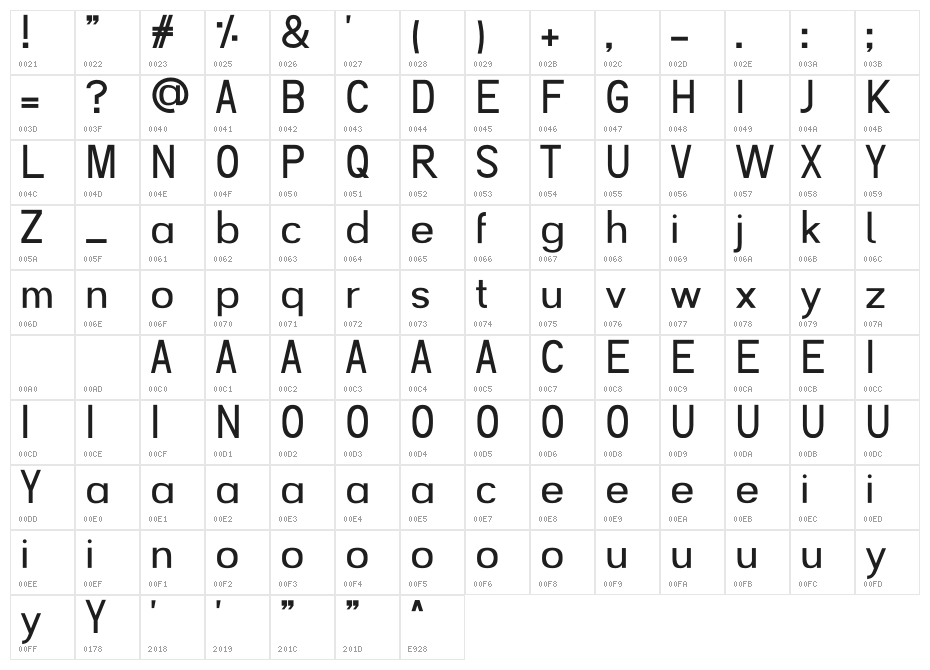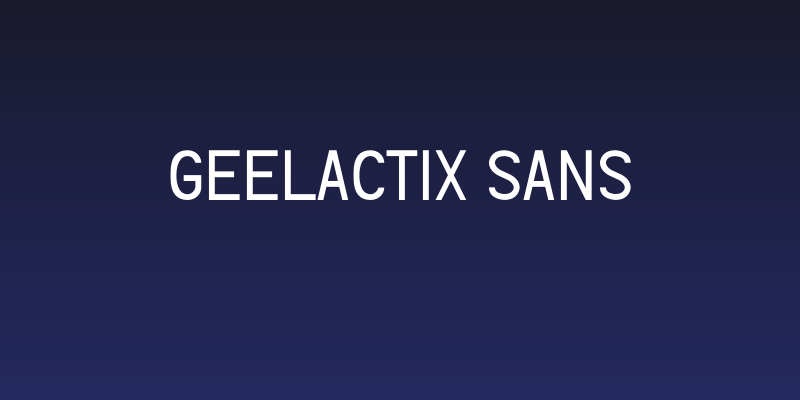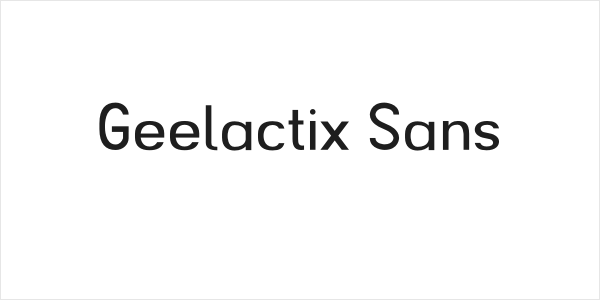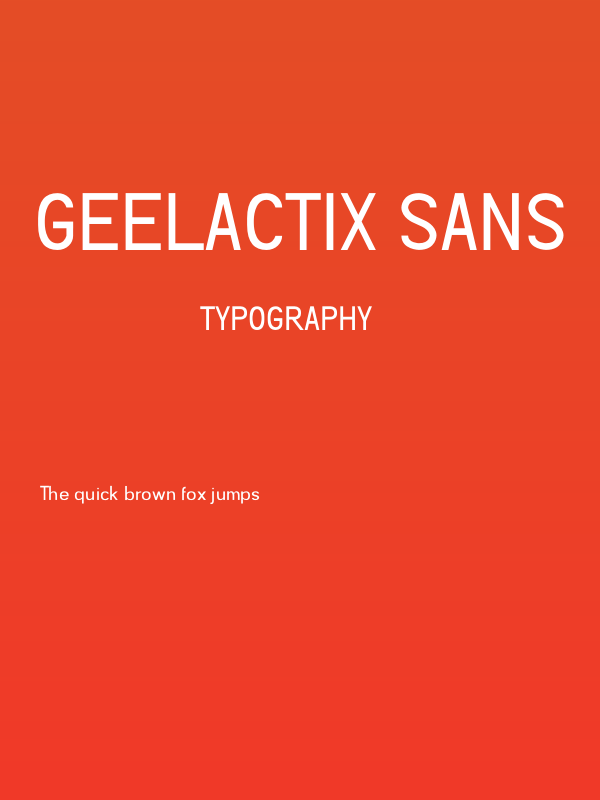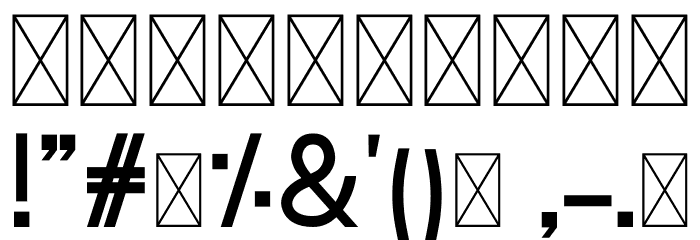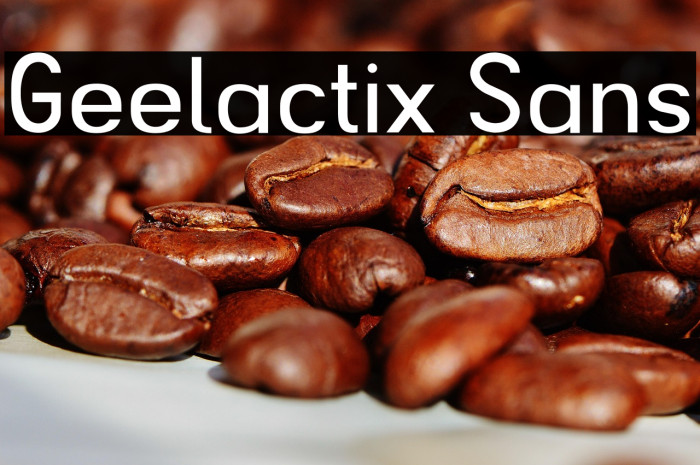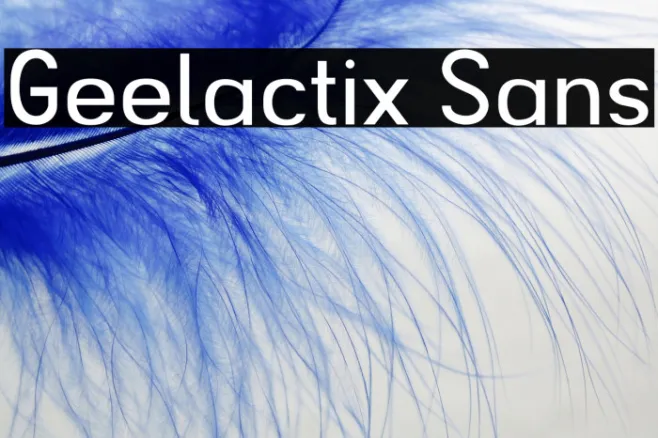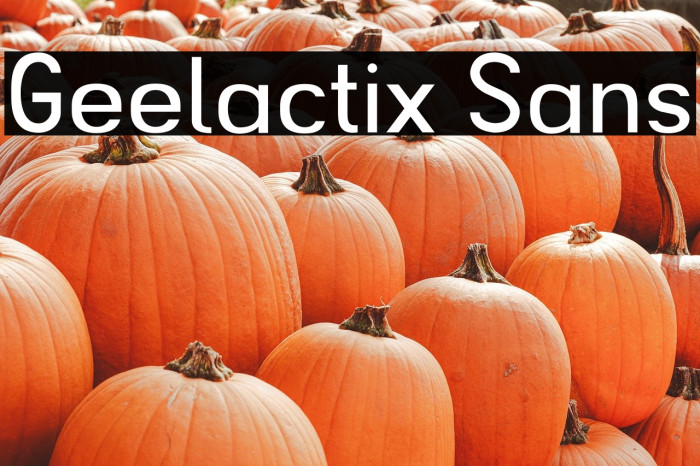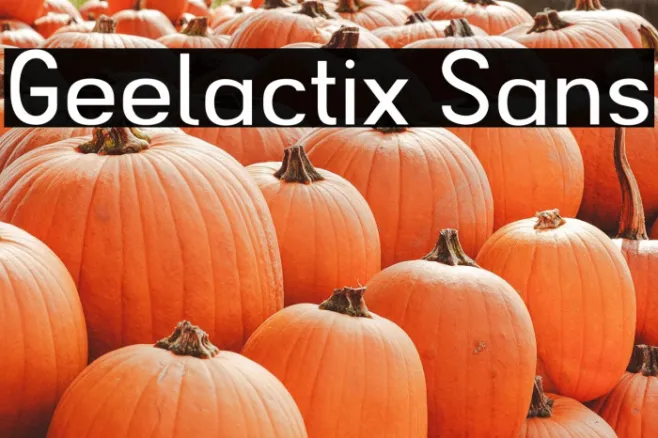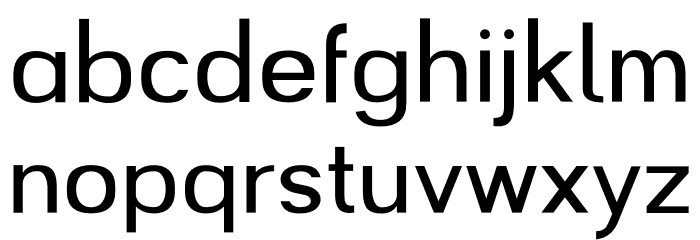
Geelactix Sans Font
Geelactix Sans Description
This font features a clean and modern sans-serif design, characterized by its simplicity and clarity. The letters are evenly spaced with a consistent stroke width, creating a harmonious and balanced appearance. The uppercase and lowercase letters are well-proportioned, making the font highly legible. The geometric shapes of the characters give it a contemporary feel, suitable for a wide range of applications. The numbers and special characters maintain the same design ethos, ensuring uniformity across all text elements.